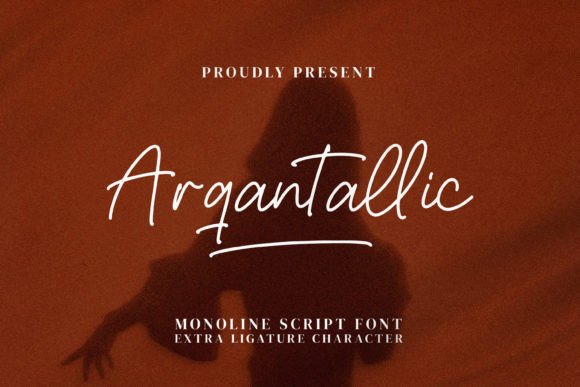
Introducing Arqantallic Font: The Enchanting Handwritten Script to Elevate Your Designs
In the realm of typography, few fonts manage to capture the essence of elegance and romance as effectively as the Arqantallic font. This enchanting handwritten script is a versatile tool that can transform your creative projects, adding a touch of sophistication and charm. Whether you’re designing greeting cards, crafting headlines, or working on any other project that requires a personal touch, Arqantallic is the perfect choice.
The Characteristics of Arqantallic Font
Arqantallic is more than just a font; it’s an experience. Its fluid strokes and delicate curves bring a sense of movement and grace to any design. The font’s unique characteristics include:
- Elegant Handwritten Style: Arqantallic boasts a beautiful, handcrafted look that is both modern and classic. Its elegant strokes make it perfect for projects that demand a high level of sophistication.
- Versatility: One of the standout features of Arqantallic is its versatility. It can be used across a wide range of applications, from formal invitations and greeting cards to digital headlines and branding.
- Romantic Appeal: The font’s design inherently carries a romantic feel, making it ideal for wedding-related projects, Valentine’s Day cards, and any design that aims to evoke emotions.
- Readability: Despite its elegant and cursive nature, Arqantallic maintains a high level of readability, ensuring that your message is conveyed clearly and effectively.
Applications of Arqantallic Font
The applications of Arqantallic are as diverse as its features. Here are some of the best ways to utilize this enchanting font:
- Greeting Cards: Add a personal touch to your greeting cards for special occasions like weddings, anniversaries, and Valentine’s Day.
- Headlines and Titles: Elevate your blog posts, articles, and website headers with a touch of elegance and sophistication.
- Branding and Logos: For businesses that aim to convey a sense of luxury, romance, or elegance, Arqantallic can be a valuable asset in creating a brand identity.
- Wedding and Event Invitations: Make your wedding or event invitations stand out with a font that speaks of love, elegance, and celebration.
Why Designers and Crafters Love Arqantallic
Arqantallic has quickly become a favorite among designers and crafters for several reasons:
- Unique Aesthetic: In a sea of generic fonts, Arqantallic offers a unique aesthetic that can set your designs apart.
- Emotional Connection: The font’s romantic and elegant feel helps create an emotional connection with the audience, making your designs more impactful.
- Time-Saving: With Arqantallic, you can achieve professional-looking results without spending hours on custom typography.
Tips for Using Arqantallic Effectively
To get the most out of Arqantallic, consider the following tips:
- Pair with Simple Fonts: For optimal readability, pair Arqantallic with simpler fonts for body text.
- Adjust Letter Spacing: Fine-tune the letter spacing to enhance the flow and elegance of the text.
- Use it Sparingly: While Arqantallic is beautiful, using it sparingly can make it more impactful. Consider using it for headlines or key messages.
In conclusion, Arqantallic is more than just a font – it’s a design element that can elevate your projects, adding a touch of elegance, romance, and sophistication. Its versatility, readability, and enchanting appearance make it a must-have for designers and crafters looking to make their mark. Whether you’re working on a greeting card, a headline, or a branding project, Arqantallic is sure to bring your vision to life in a beautiful and compelling way.